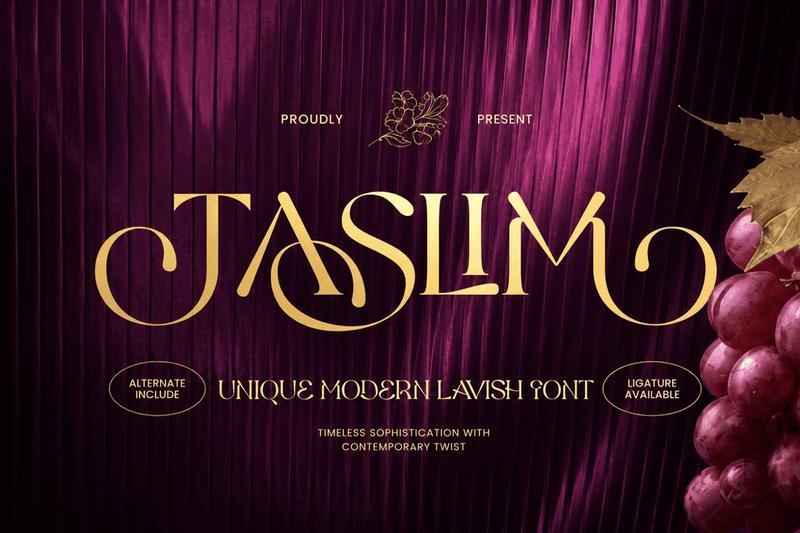
**TASLIM** is a **unique modern lavish font** crafted to bring elegance, richness, and refined personality to premium design projects. With stylish letterforms, graceful proportions, and a polished visual rhythm, this typeface is perfect for luxury branding, elegant logos, editorial titles, packaging, and sophisticated visual identities.
Designed for creators who want typography with both uniqueness and high-end appeal, **TASLIM** blends modern aesthetics with lavish decorative charm. Its distinctive shapes help every wordmark, headline, and brand composition feel memorable, exclusive, and beautifully refined.
Whether used for fashion labels, beauty brands, boutique packaging, wedding stationery, or premium marketing visuals, **TASLIM** delivers a luxurious and stylish impression across both print and digital media.
**TASLIM Unique Modern Lavish Font Features**
* Unique modern font with lavish and elegant character
* Perfect for luxury branding, logos, editorials, and premium packaging
* Stylish letterforms with refined visual proportions
* Ideal for fashion, beauty, wedding, lifestyle, and boutique industries
* Uppercase, lowercase, numerals, and punctuation included
* OpenType features for enhanced typographic styling
**Create a lavish and memorable identity with TASLIM the perfect modern font for luxury branding, elegant packaging, and refined editorial design.**